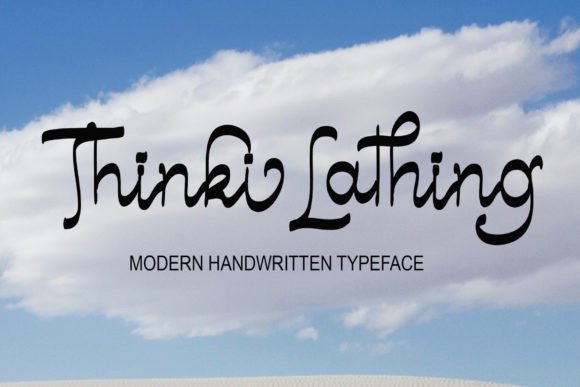
Introducing Thinki Lathing, a striking script font that will redefine your creative expressions! This handcrafted font, created by the talented Canden Meutuah, is a symphony of elegance and simplicity. Thinki Lathing is not just a font; it's an experience that brings life to your words.
Experience the Enchanting Simplicity:
With its easy-going nature, Thinki Lathing effortlessly blends into any design, enhancing its visual appeal without overpowering it. The font's inherent simplicity makes it a versatile choice, suitable for a wide range of projects. From modern resumes that demand attention to wedding invitations that exude romance, Thinki Lathing seamlessly adapts to your creative vision.
Make a Statement with Style:
Thinki Lathing's understated elegance adds a touch of sophistication to your designs. Its stylish curves and graceful lines create a visually captivating aesthetic that commands attention. Whether you're crafting business cards that leave a lasting impression or designing advertisements that turn heads, Thinki Lathing is the perfect font to make a statement.
Embrace the Versatility:
Thinki Lathing's versatility knows no bounds. It's equally at home on websites, where it effortlessly enhances user experience, and on product advertisements, where it captivates audiences with its inviting charm. Whether you're creating social media graphics that demand engagement or designing logos that leave an unforgettable mark, Thinki Lathing is your trusted companion.